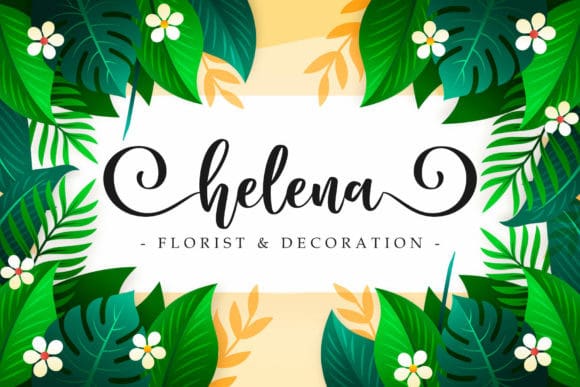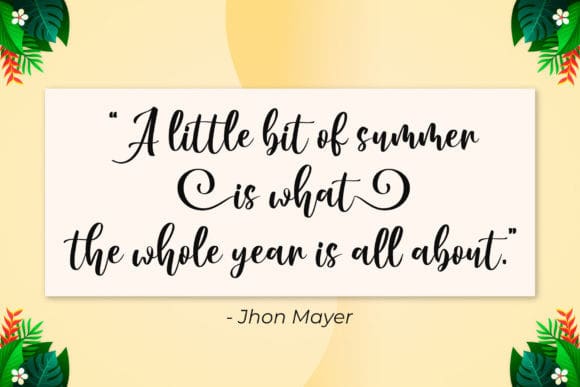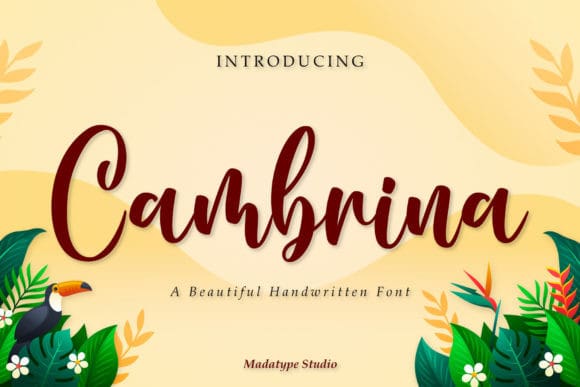
Cambrina Font
Cambrina Font is a trendy and stylish handwritten font that is made with great care in order to produce the expected outcomes. This font can be used for writing various kinds of products according to their respective needs.